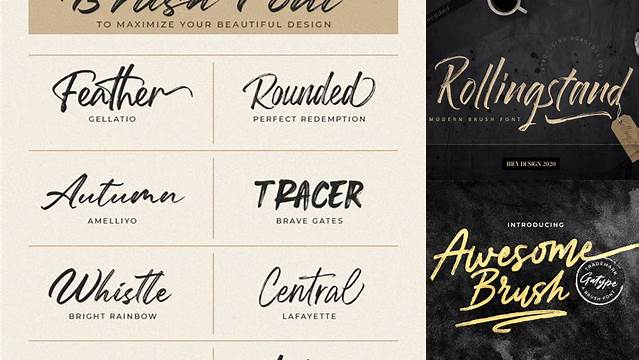
Awesome Free Brush Script Fonts For Your Designs
Hey design enthusiasts! Are you looking to add a touch of personality, flair, and a handcrafted feel to your projects? Well, you've come to the right place! Today, we're diving deep into the world of best free brush script fonts. These fonts are like the cool older sibling of the font family – they're effortlessly stylish, a little bit rebellious, and always ready to make a statement. They mimic the look of real brush strokes, giving your designs a unique, artistic vibe. Whether you're working on a logo, a website header, social media graphics, or even a wedding invitation, a well-chosen brush script font can instantly elevate your design game. And the best part? We're focusing on the best free brush script fonts that won't break the bank. Ready to get started? Let's explore some fantastic options!
Best Free Brush Script Fonts: A Comprehensive Guide
Let's kick things off with a general overview of what makes a brush script font truly stand out. These fonts are characterized by their hand-drawn appearance, often featuring thick and thin strokes, rough edges, and a dynamic flow. They're designed to look like they were created with a real brush and ink, giving them an authentic and organic feel. This is in stark contrast to clean, sans-serif fonts, which often appear too sterile for certain design purposes. Brush script fonts are perfect for projects where you want to convey a sense of creativity, warmth, and personality. Think about brands that want to appeal to a younger audience, or businesses that want to showcase their handmade products. These fonts are also incredibly versatile. They can be used in a variety of different contexts. Imagine a bakery using a brush script font for its logo, giving off that cozy, homemade vibe; or a fashion brand using it in its Instagram stories to show its latest styles. But choosing the best free brush script fonts isn't just about aesthetics; it's also about readability, versatility, and licensing. You'll want a font that not only looks good but is also easy to read, works well in various sizes, and comes with a license that allows you to use it for your projects, both personal and commercial. So, before you start, be sure to check the licensing terms associated with each font.
Key Features of a Top-Tier Brush Script Font
What separates a good brush script font from a great one? Several key features define the quality and usability of a brush script font. Firstly, look for fonts with authentic brush strokes. The strokes should vary in thickness, mirroring the natural pressure variations of a real brush. The edges should be slightly rough, giving the font a realistic, hand-drawn feel. Avoid fonts that appear overly digitized or too clean. Secondly, consider the font's readability. While brush script fonts are meant to be stylistic, readability is crucial. Choose fonts where the characters are distinct and easily recognizable, even at smaller sizes. This is especially important for body text or longer pieces of content. Thirdly, versatility is key. A great brush script font should be able to work across various applications, from logos and headlines to website headers and social media graphics. Look for fonts that come with a full character set, including numbers, punctuation, and special characters. Support for different languages is also a bonus. Lastly, always pay attention to the licensing terms. Make sure the font is available for both personal and commercial use, depending on your project's requirements. Some free fonts may have restrictions on commercial use, so always double-check before using them in paid projects. By keeping these features in mind, you can select the best free brush script fonts that not only look great but also meet all your design needs.
Top Free Brush Script Fonts for Commercial Use